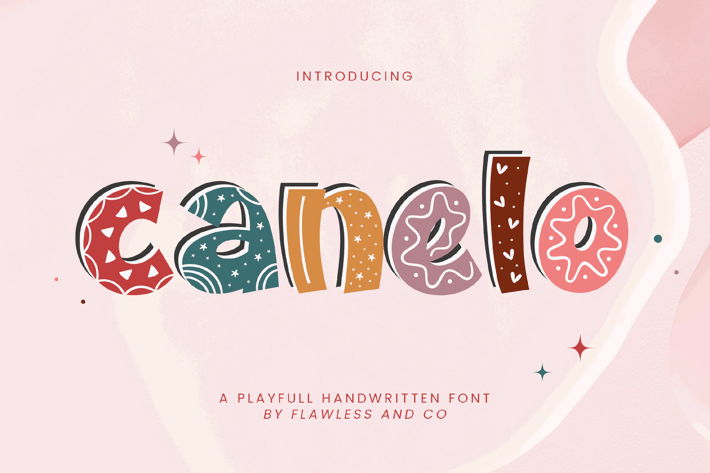
Canelo Pattern Handwritten Font
Introducing "Canelo" is a playful handwritten font. This font is suitable for any graphic designs such as branding materials, t-shirt, print, business cards, logo, poster, photography, quotes, youtube .etc
Dive into the world of joyous design with "Canelo," a delightful handwritten font that brings an element of fun to every project. This font contains a regular style and fun style, which is equipped with patterns in fun-style fonts. Canelo is not just a typeface; it's a celebration of playfulness, seamlessly combining a regular style with whimsical elements that are sure to infuse your creations with charm and character.